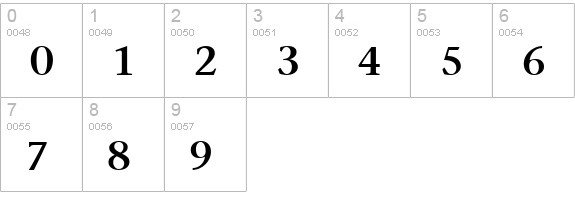
Mesouran Serif SSi Semi Bold is a strong, high-contrast variant in the Mesouran typeface family \xE2\x80\x94 well suited to headlines, attention-grabbing titles, and strong calls-to-action.
Mesouran Serif SSi Semi Bold font is a stunning typeface that exudes elegance and sophistication. With its clean lines and bold strokes, this font is perfect for adding a touch of modernity to your designs. The semi-bold weight of Mesouran Serif SSi gives it a strong presence on the page, making it ideal for headlines and titles. What sets Mesouran Serif SSi apart is that it is available for free download at FontsMarket.com. This means that you can easily access this beautiful font without any cost, making it a valuable addition to your design toolkit. Whether you're working on a print project or creating digital content, Mesouran Serif SSi Semi Bold font will elevate your work and make a lasting impression on your audience.